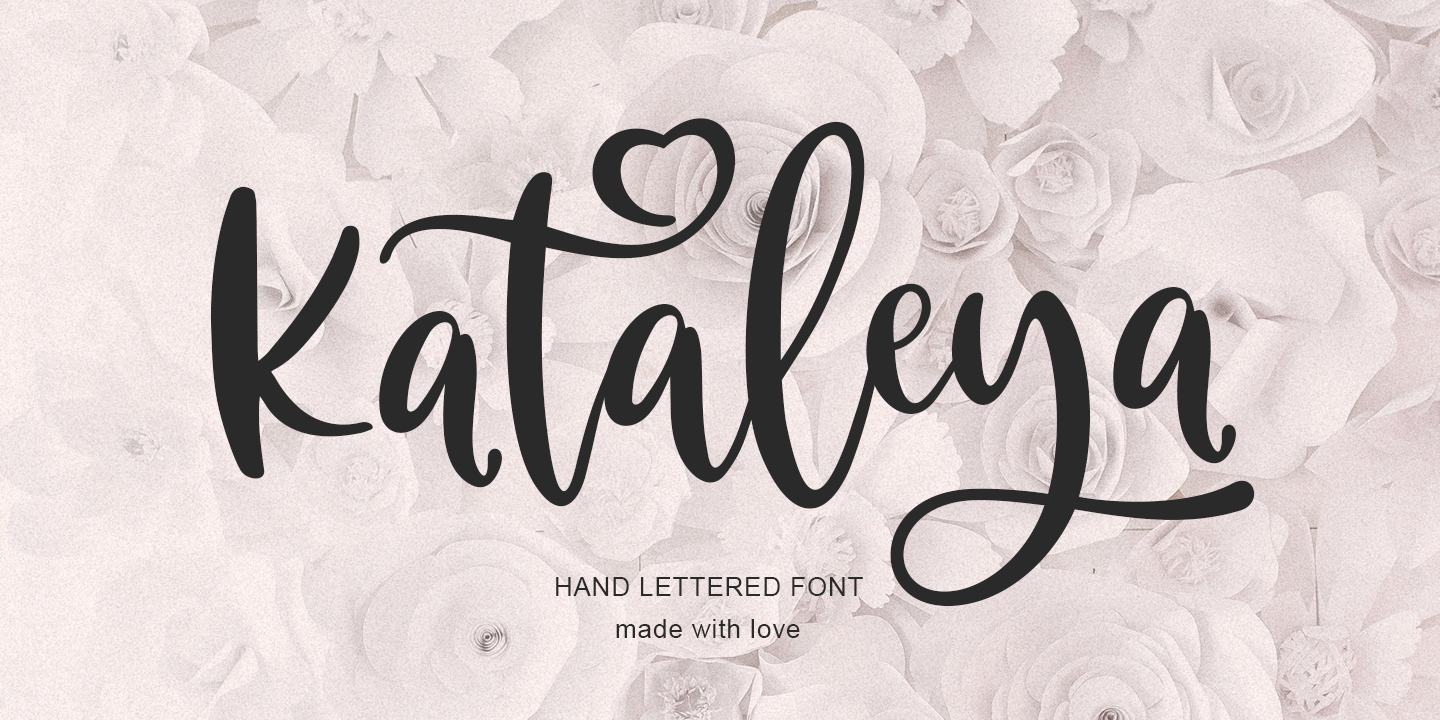
Kataleya Font is perfect for feminine branding projects, beauty salon logos, fashion boutique signage, romantic wedding invitations, cosmetic product packaging, jewelry brand identity, floral design studios, spa and wellness centers, lifestyle blog headers, and elegant social media graphics that require a graceful and sophisticated feminine aesthetic.
What makes Kataleya Font so exciting is its stunning feminine elegance that perfectly captures the essence of grace and sophisticated beauty. This remarkable typeface features flowing letterforms with delicate curves and refined details that exude femininity and charm. The font's carefully crafted characteristics include graceful swashes and elegant flourishes that give your designs an unmistakably beautiful appearance, making it an ideal choice for designers who want to convey elegance, romance, and feminine sophistication in their work.
Kataleya Font comes in multiple font families including Regular, Bold, Light, Italic, Bold Italic, Script, Thin, and Decorative variations. Each family member maintains the distinctive feminine aesthetic while offering different weights and styles to suit various elegant design needs. The complete font family provides designers with extensive flexibility for creating cohesive beauty-focused brand identities and diverse typographic hierarchies that maintain their graceful appeal.
For designers seeking authentic feminine typography, Kataleya Font Free Download offers an exceptional solution that brings the timeless appeal of feminine design and elegant aesthetics to modern digital projects. This versatile typeface works beautifully in both large display sizes and smaller text applications, making it suitable for everything from captivating beauty headlines to delicate body text. The font's unique character makes it particularly effective for brands that want to convey grace, beauty, and feminine excellence.
Whether you're working on beauty brand campaigns, fashion magazine layouts, wedding planning materials, or feminine lifestyle content, Kataleya Font delivers the perfect balance of readability and elegant character. Its distinctive feminine-inspired design elements help create memorable brand experiences that resonate with audiences seeking beauty and sophistication.
The font's versatility extends beyond traditional print applications, working equally well in digital environments where feminine aesthetics are desired. From website headers to social media graphics, Kataleya Font maintains its graceful appeal across all media formats, ensuring consistent brand presentation throughout your beauty-focused design projects.